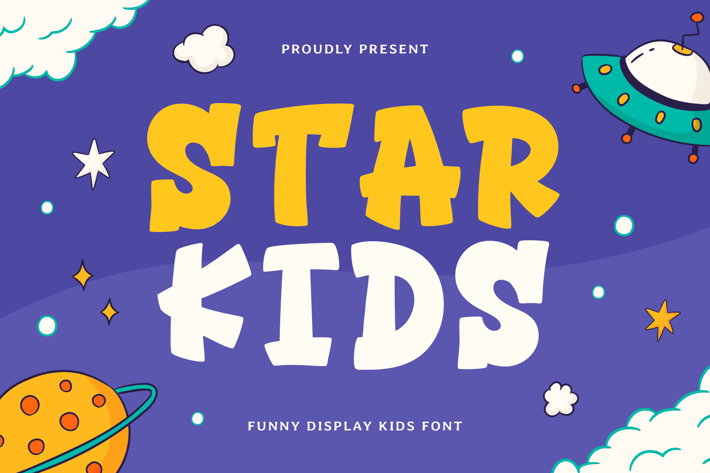
Starkids - Kids Font
Starboy is a delightful and dynamic display font that brings a sense of fun and energy to any project. Its bold, whimsical characters are designed to stand out and capture attention, making it perfect for themes revolving around children, toys, art, and educational content. With its charming and decorative flair, Starboy is an excellent choice for designs that need a light-hearted and creative touch.
Whether you’re working on school materials, toy packaging, or fun illustrations, Starboy ensures your design feels playful yet professional. Its unique letterforms give it an approachable and friendly aesthetic, making it suitable for a wide range of children's projects. The font’s versatility shines through in both printed and digital designs, enhancing the overall appeal.
Bring your creative vision to life with the Starboy font! Perfect for projects that need an extra burst of playfulness, let this font elevate your designs and capture the spirit of childhood.